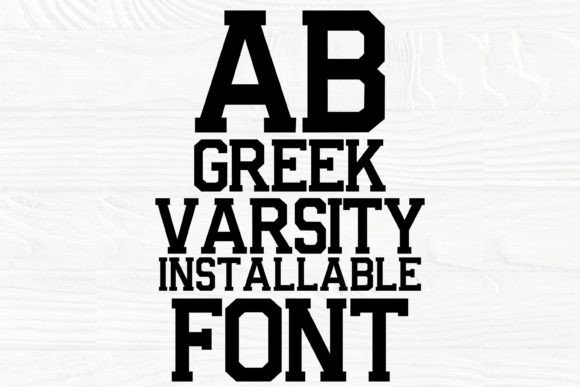
Greek Varsity Font
Add a touch of tradition and sophistication to your crafting projects with this Greek Varsity font featuring the classic Greek alphabet in a stylish and versatile design. Perfect for incorporating Greek letters into your DIY creations, this Greek font set is ideal for a wide range of projects, from apparel to home decor. Elevate your crafting game with the timeless elegance of Greek writing and make a statement with every piece you create.